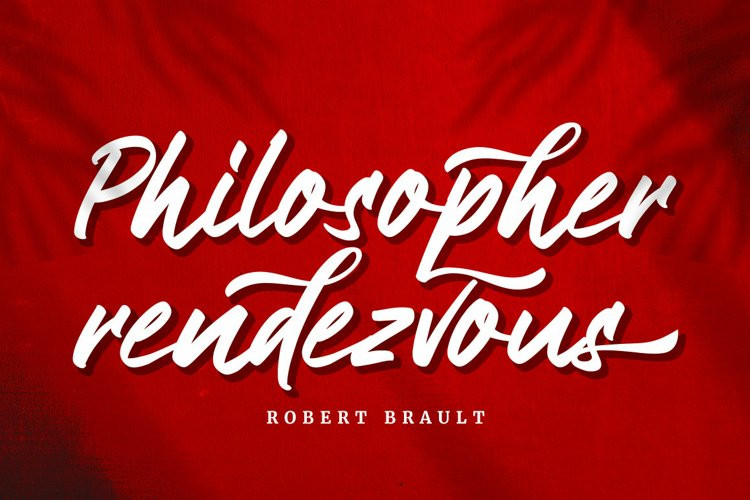
Bakulipack Font
Bakulipack FontBakulipack Handwritten Script Font is a cool, friendly, and trendy handwritten font. Not too thin and not too thick, balanced and varied, this was designed to enhance the beauty of your projects.